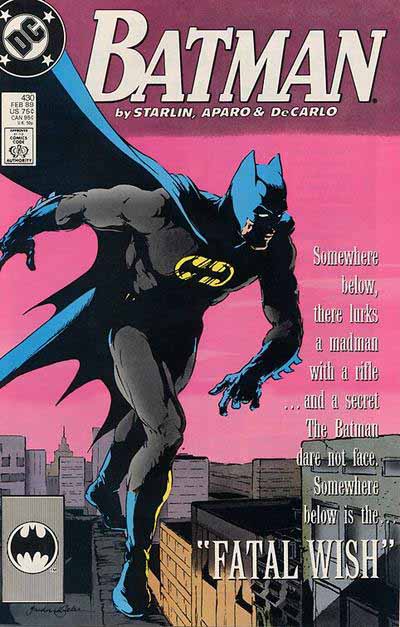
The Batman logo created by Kez Wilson from the font Belwe Bold, in this version with a large B, slanted, open for color and with a slim drop shadow, continued on the cover for quite a while, sometimes with the bat shape first seen on issue 426 (see part 3), more often alone, as in the cover above, issue 430. Dennis O’Neil, the editor at the time, seemed to be fond of these type-heavy designs, and I think this was an early example of the general trend in comics logos and covers to move away from the hand-drawn logo look of the past toward a more mainstream magazine style. Part of the push toward legitimizing comics as entertainment for adults as well as children, no doubt. I can certainly understand the impulse, but on the other hand, I feel all-type designs like this are missing out on part of what makes comics appealing. There’s room for lots of different approaches and opinions about comics cover design, of course. Sometimes this logo was used in combination with more graphic story arc titles that sort of bridged the two styles, like this one on Batman 452:
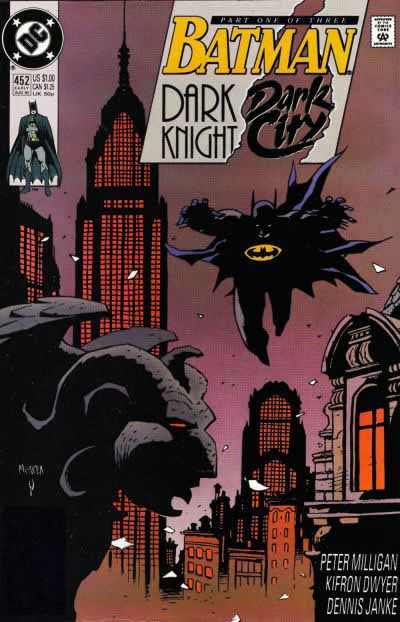
I believe Curtis King, new DC staffer in charge of cover design, put this one together. It’s certainly an interesting combination of styles and angles, and I really like the “Dark City” lettering.
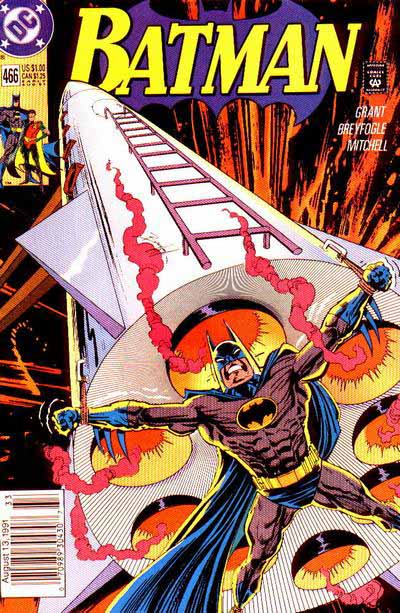
For issue 466 a new bat shape was introduced, this one similar to Batman’s chest symbol, with each side of the shape curved to fit into an oval. I think Curtis did this one as well, and I like it. It’s more compact than the old bat wings, and the tie-in to the chest symbol mirrors the same tie-in the original bat shape had to the original chest symbol. It’s sometimes pointed out that this particular chest symbol is a rather foolish one for a character like Batman, though…it’s a sort of obvious target for a gunman, especially with the yellow oval around it. Somehow the character managed to survive anyway.
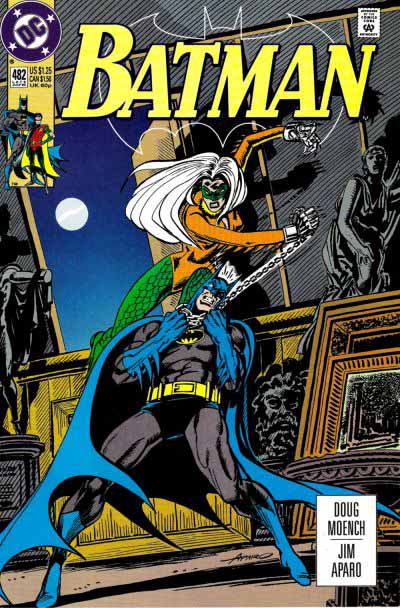
This symbol could even work as a thin outline, as shown here, allowing more of the cover art to show, but still carrying the logo concept.
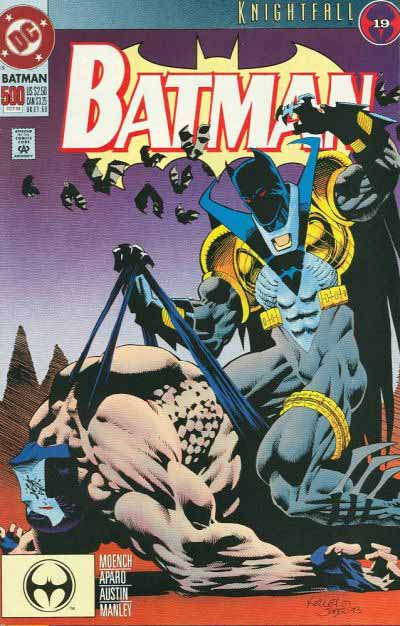
For issue 500, Curtis King commissioned a new Batman title from designer Alex Jay. Curtis told me that he and others had tired of the slab-serif logo, and wanted something more pointed. Alex has cleverly rethought the original Batman logo from the 1940s, relettered by Ira Schnapp in the 1960s, as seen in part 2 of this series. It’s hard to view well on this particular cover, so lets look at issue 503.
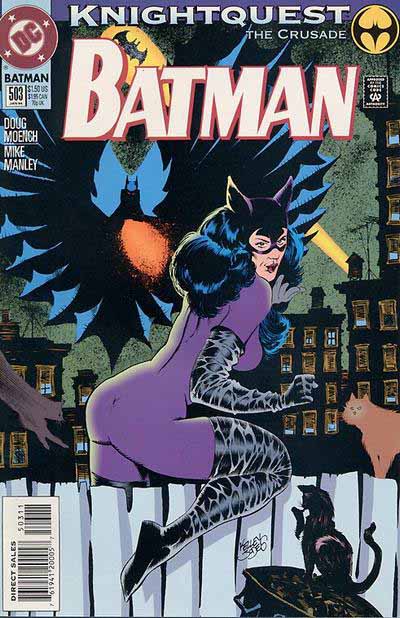
Alex took the art deco letterforms of Schnapp, added very small pointed serifs, and gave the crossbars on each A a slight tilt. He also spaced the letters tightly together, made all the inner corners sharply pointed, and gave the whole thing a nice drop-shadow (here in red). I think this is quite effective, and works particularly well with the Kelley Jones cover art of the time. I prefer it with the bat shape behind it, but here that would have been in the way of the Batman figure in the art.
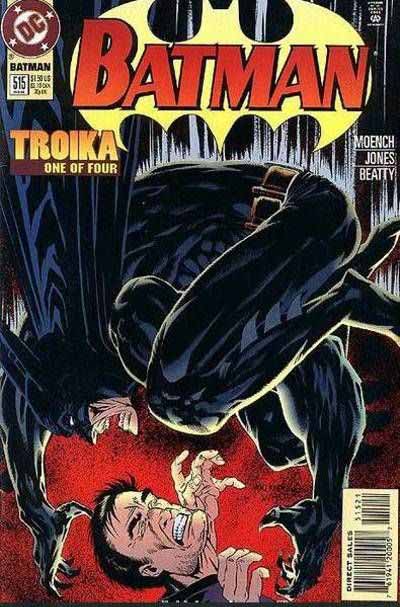
For issue 515 a new bat shape was introduced, still in the style of Batman’s chest symbol, but this one has a much smaller “body” with taller head and points. Unfortunately this picture (and maybe the printed cover) cut off the ears and upper points, so let’s look at issue 519, where the shape is complete:
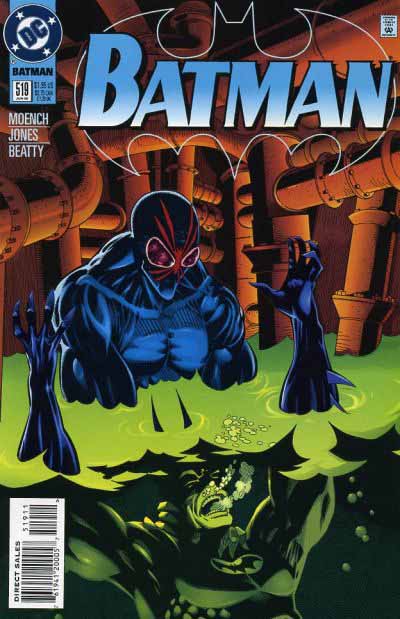
As you can see, the shape still works fine as a thin outline, and actually fits this lettering better than the old one, so it’s a nice combination that I think is very effective. But, as usual, it didn’t last long. A new influence from the Batman films was about to emerge.
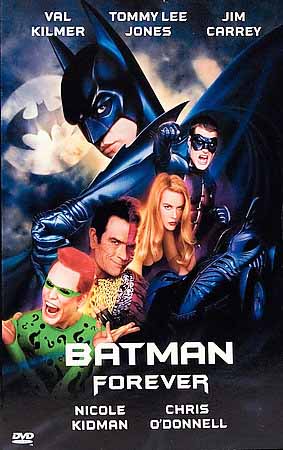
While the film “Batman Forever” garnered much laughter and distain from comics fans, it did have some nice graphics. An entire font was designed in the style shown here, and there was also a new take on the Batman symbol. These graphics were available to DC, and someone decided they should go on the Batman covers.
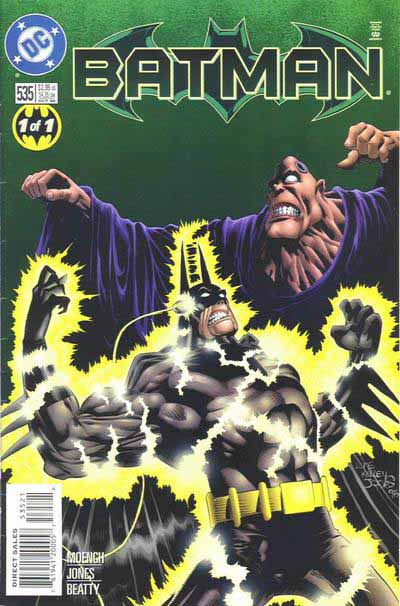
Curtis King put together this beveled version of the movie bat chest symbol with the new Batman movie logo. I actually like this quite a bit. The font isn’t terribly new and original, but it does have appeal. I like the way it pushes the word out horizontally, and the points on the right side of the B are interesting. The bat symbol also stretches out horizontally to match the type. One advantage of this design is that it leaves more room for the cover art, always a good thing, yet is still quite readable. And the bevelling on the symbol gives it some texture missing in these bat symbols for a while.